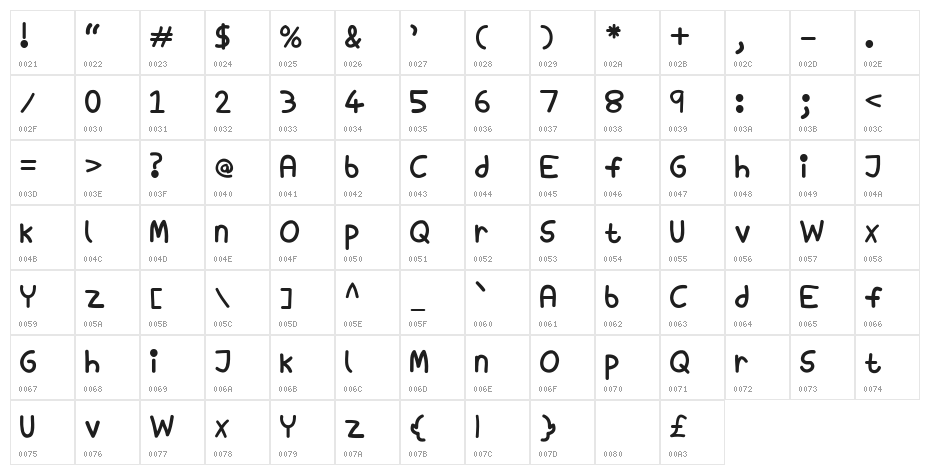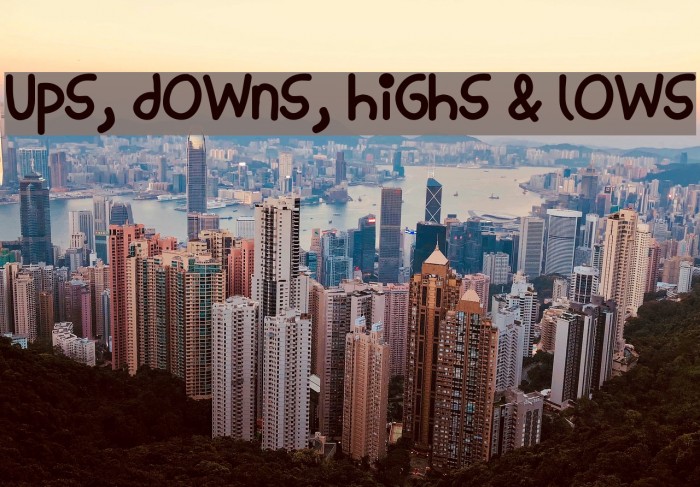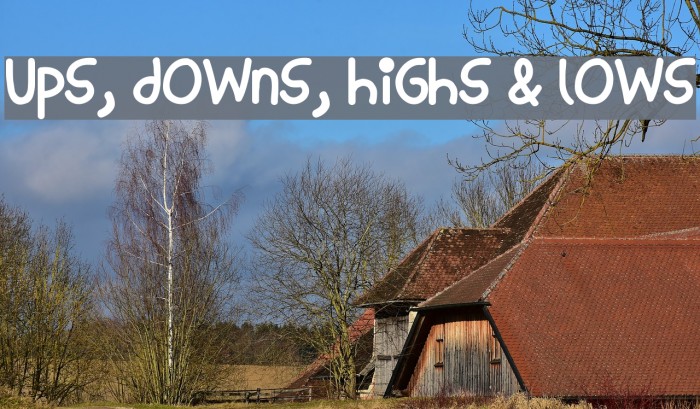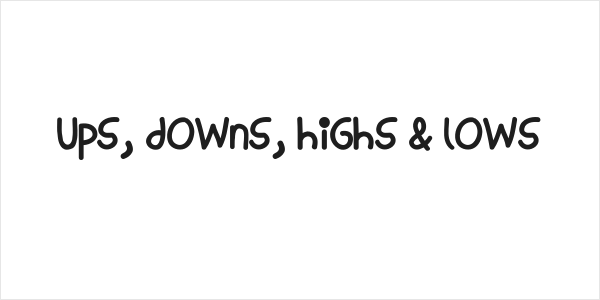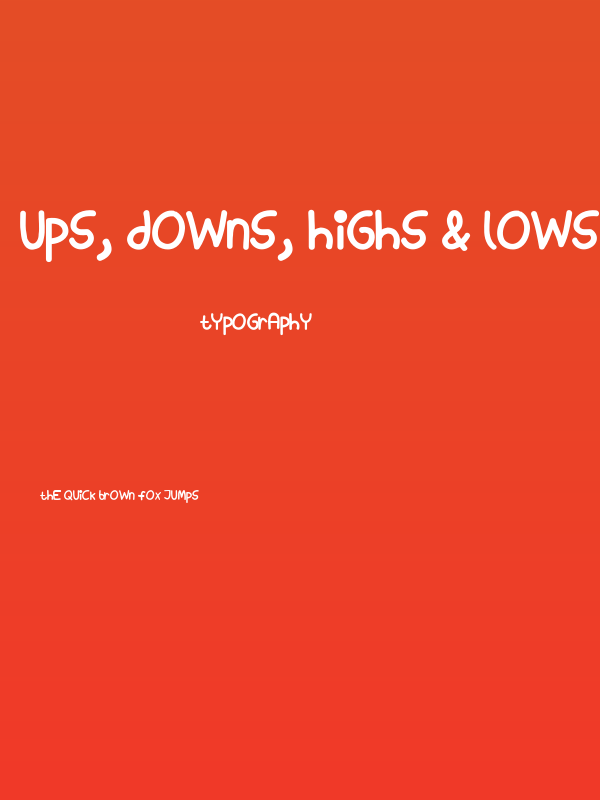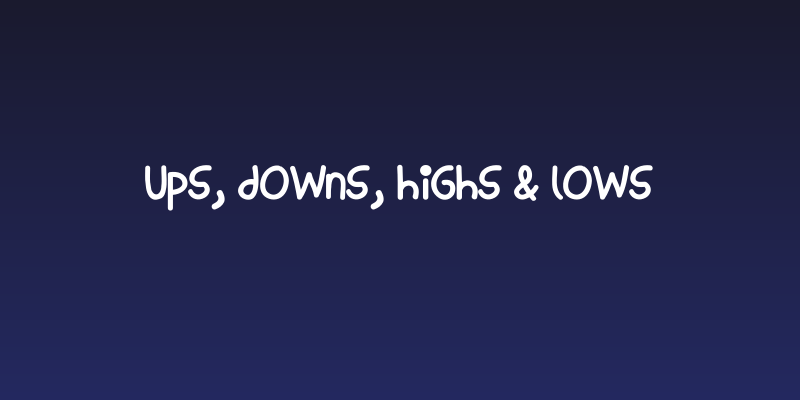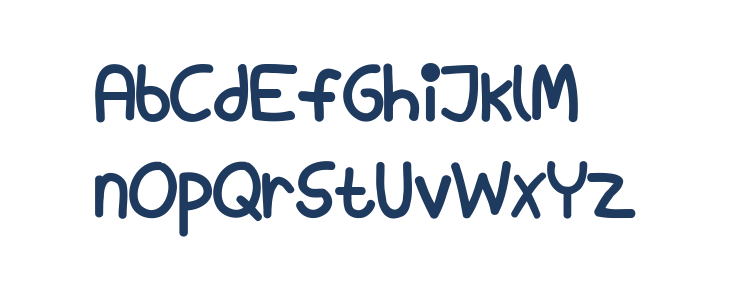
Ups, Downs, Highs & Lows Font
Ups, Downs, Highs & Lows Description
This playful and rounded font features a handwritten style with smooth, flowing curves and a casual appearance. The letters are bold and slightly irregular, giving them a friendly and approachable feel. The uppercase and lowercase characters maintain a consistent width, while the numbers and special characters blend seamlessly with the overall design. The font's informal style makes it suitable for projects that require a touch of whimsy and creativity. Its legibility is enhanced by the clear distinction between each character, making it ideal for both digital and print media.